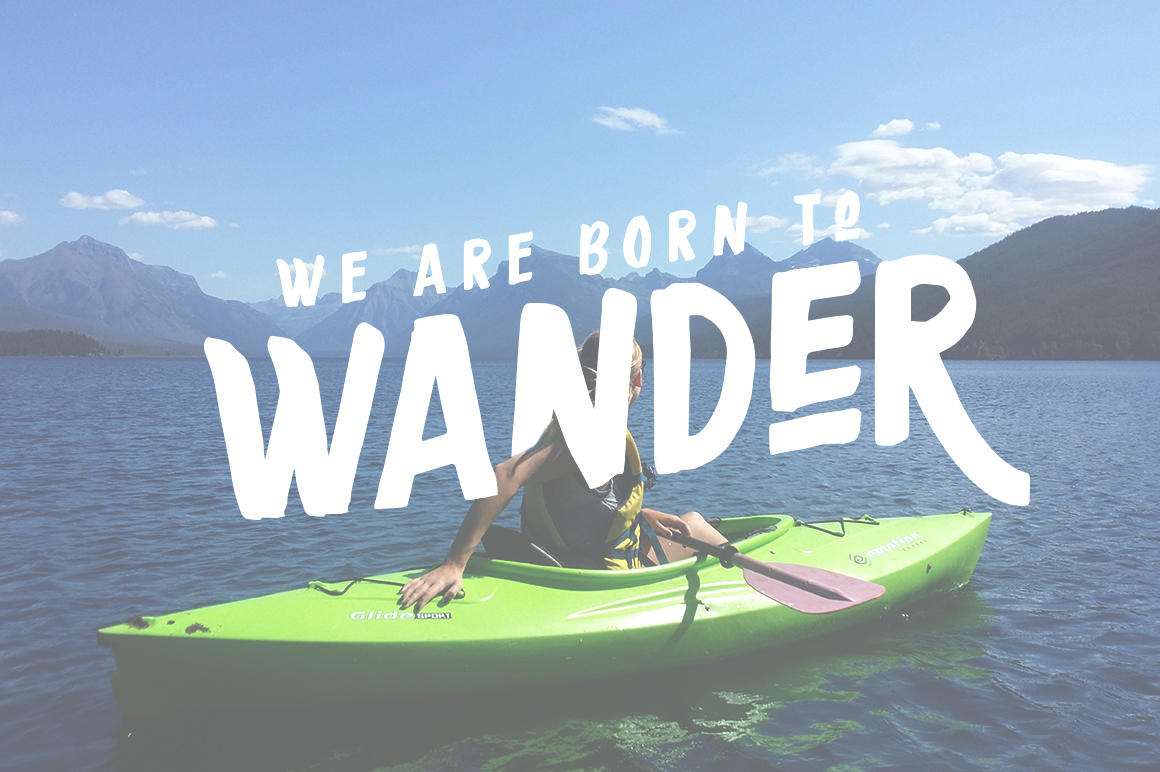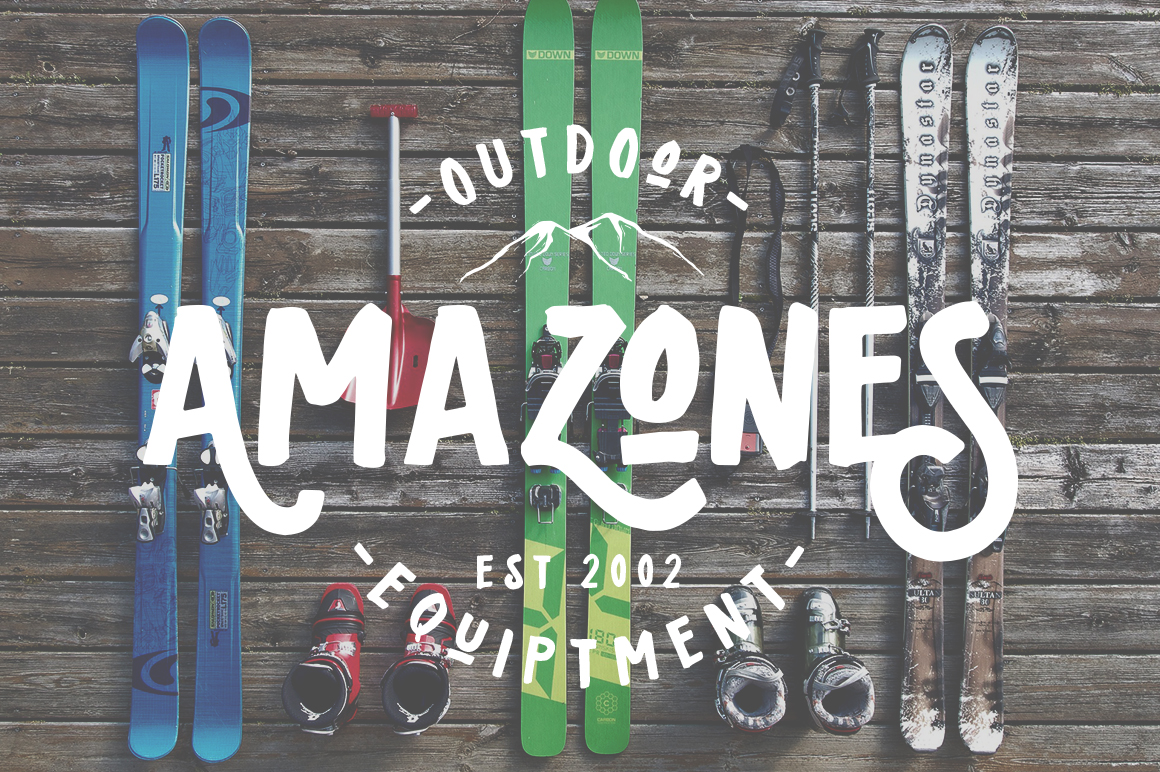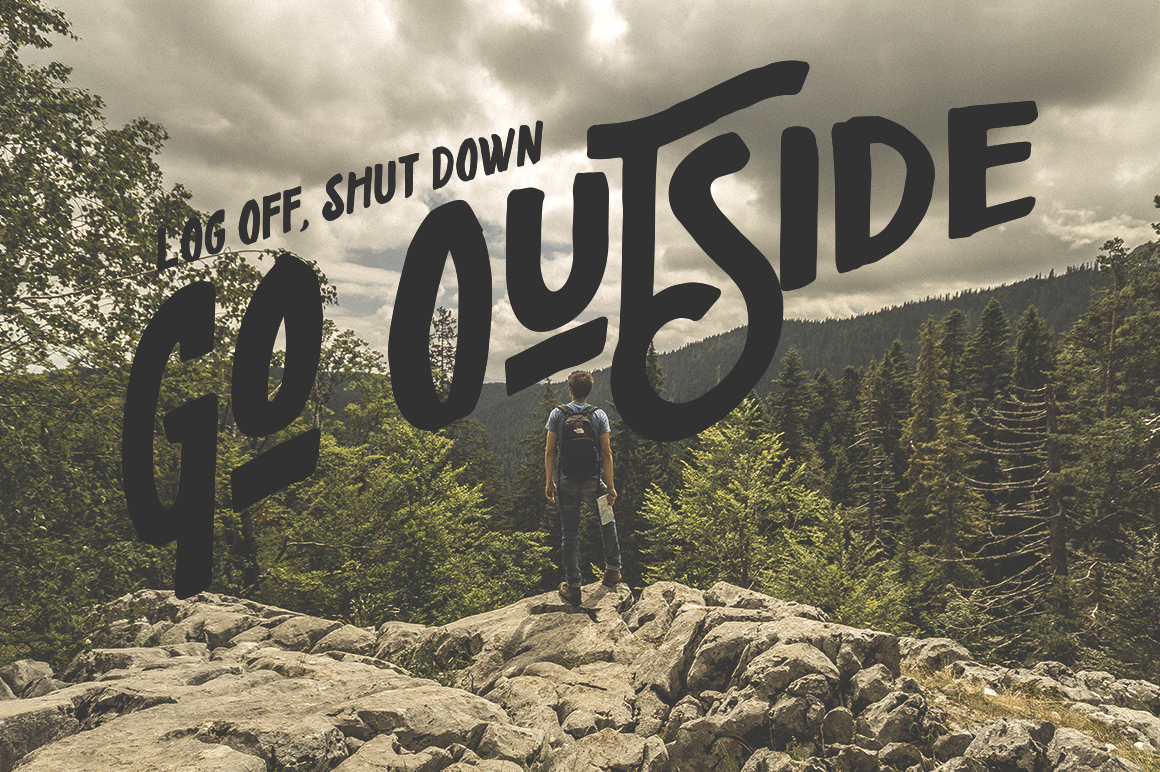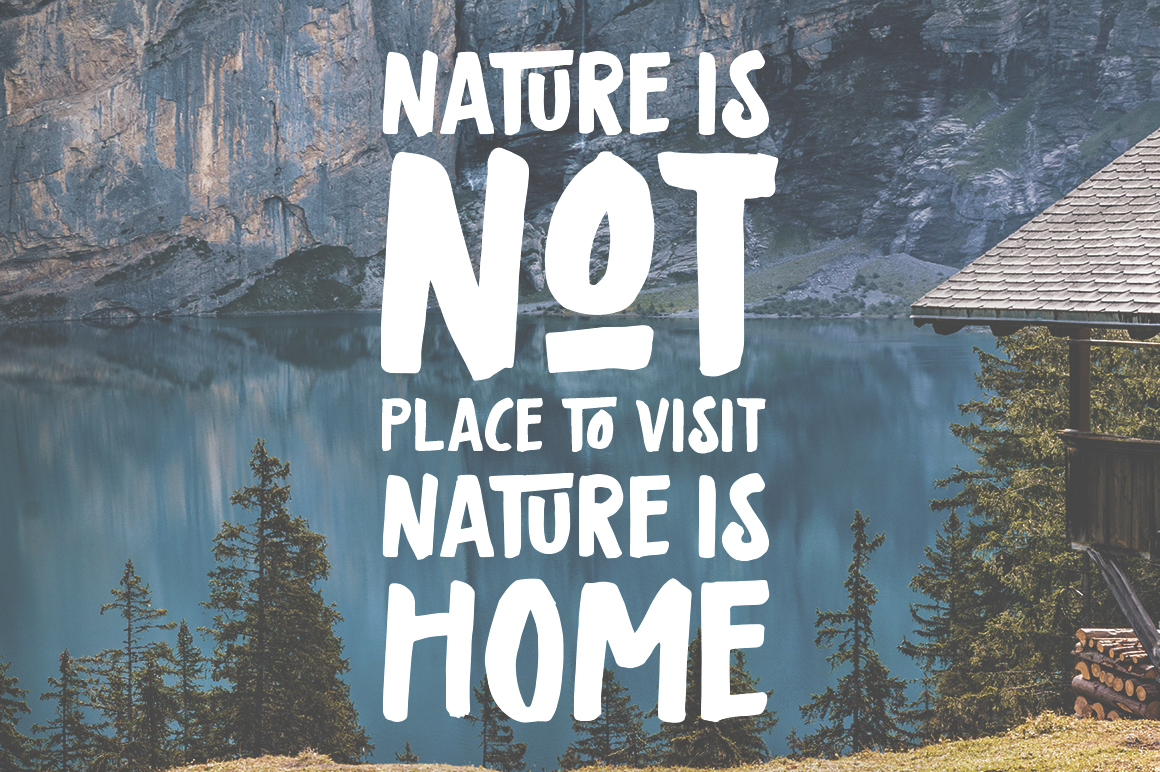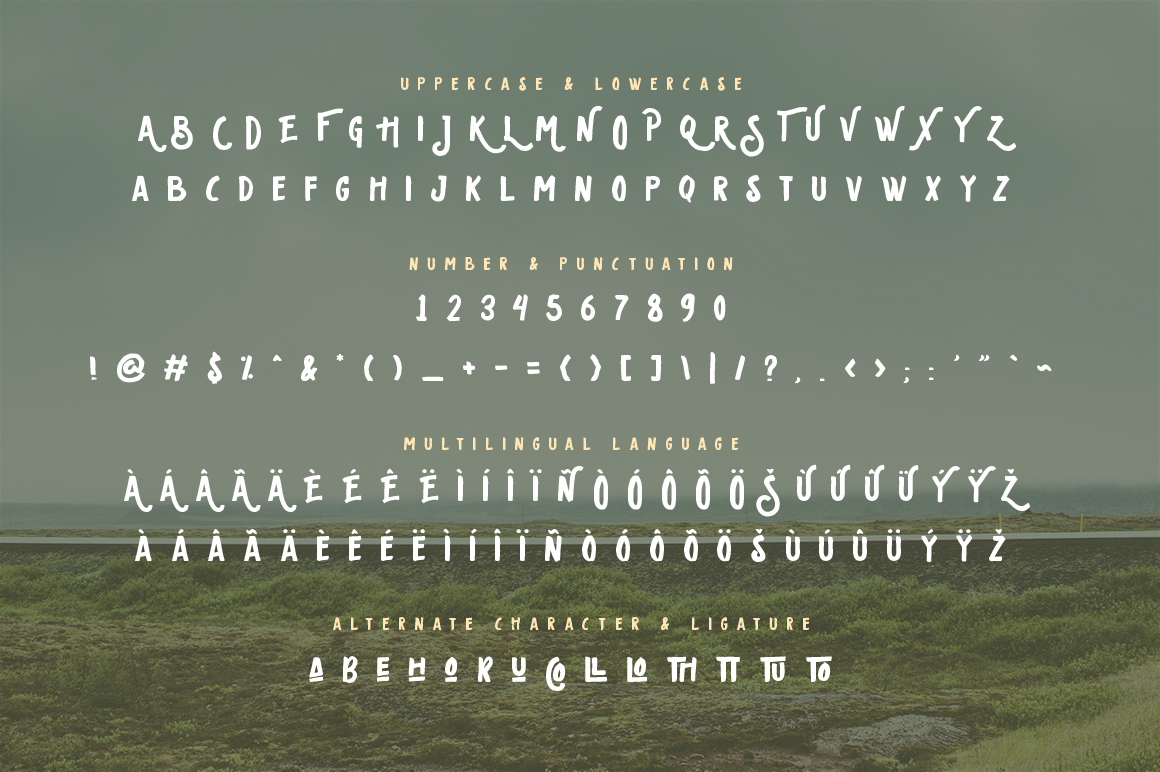
Introduction to Oldventure Font
Oldventure is a truly extraordinary display font, crafted directly from the hand of the typographer.
Mix and match the alternates and ligatures for getting the most unique results from this gorgeous brush font .